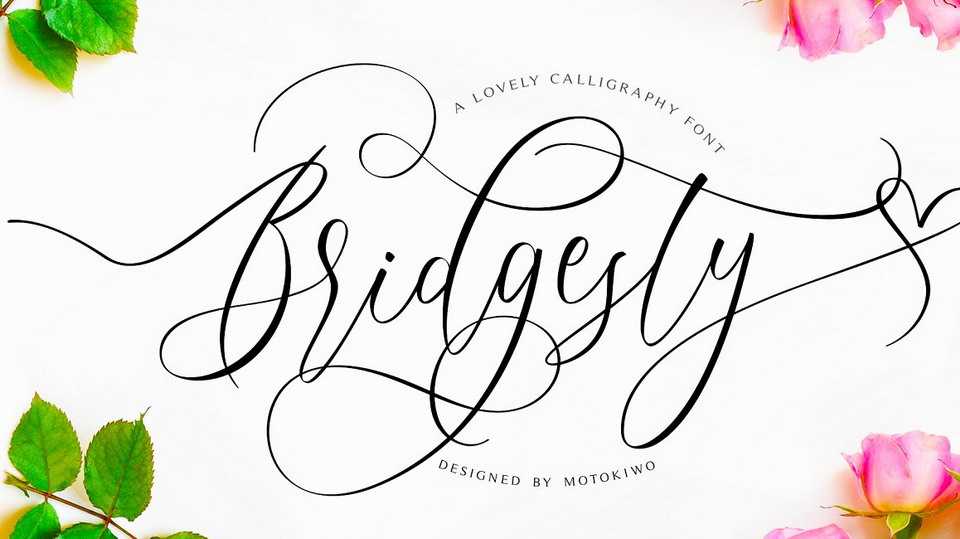
Download Bridgesty font, a lovely calligraphy script with romantic taste. It’s bouncy, elegant, and gorgeous script font that very recommended to be your wedding font.
Designer: Motokiwo